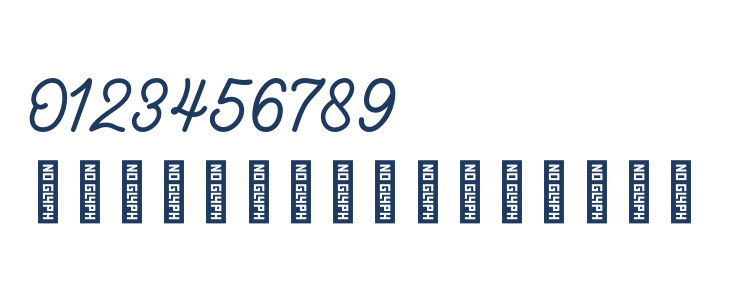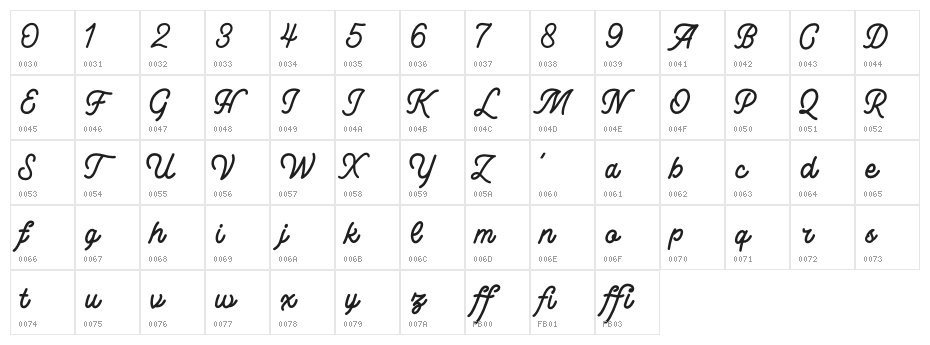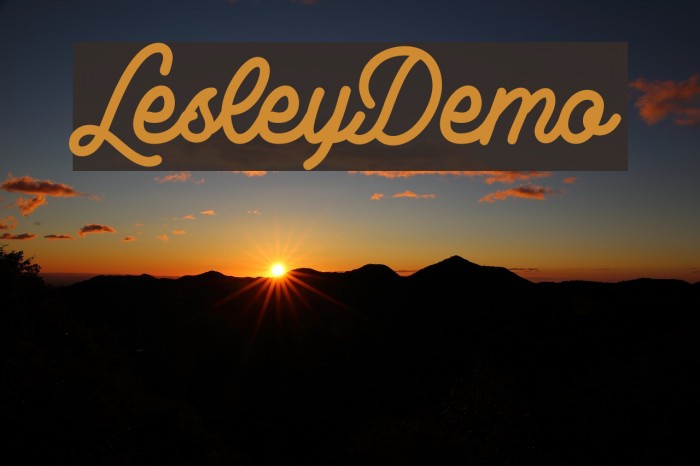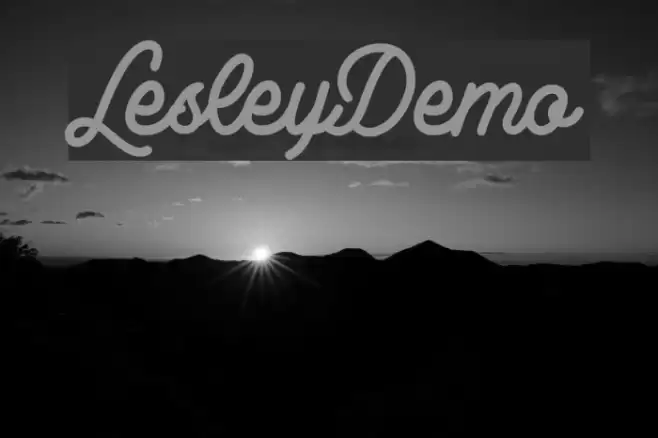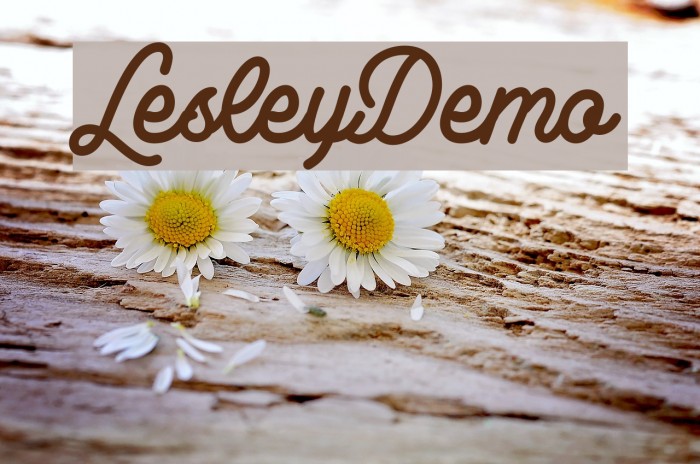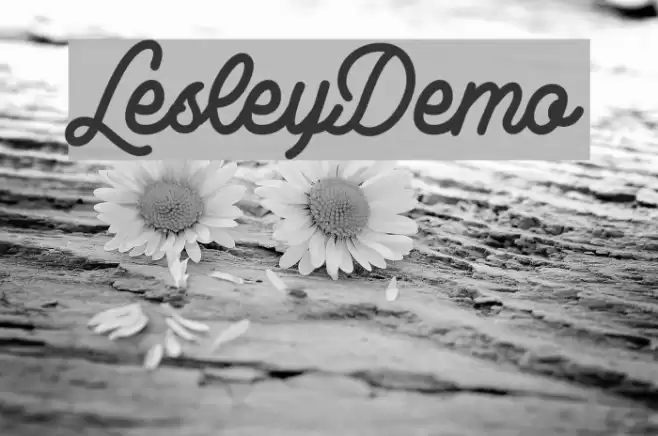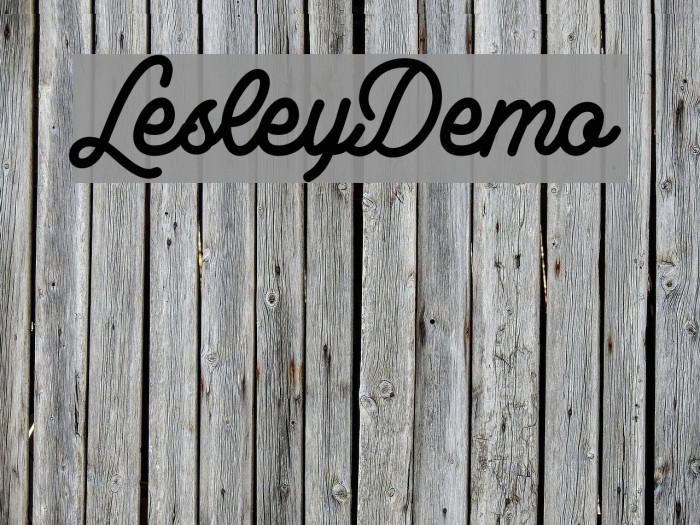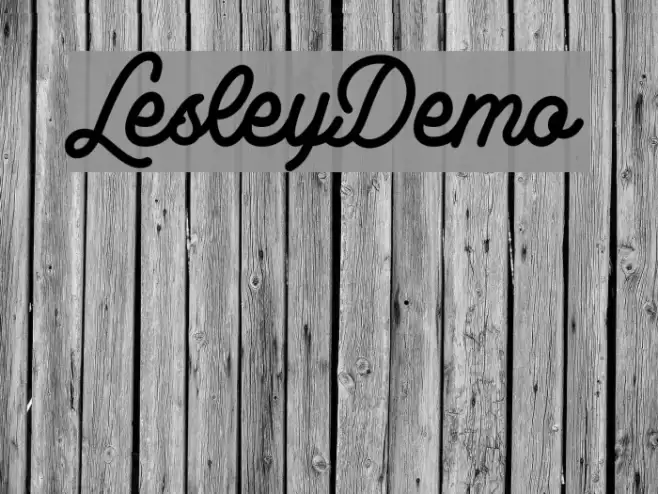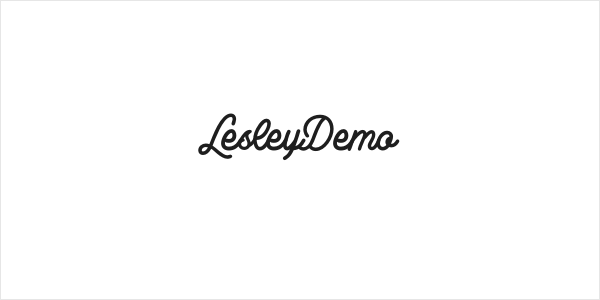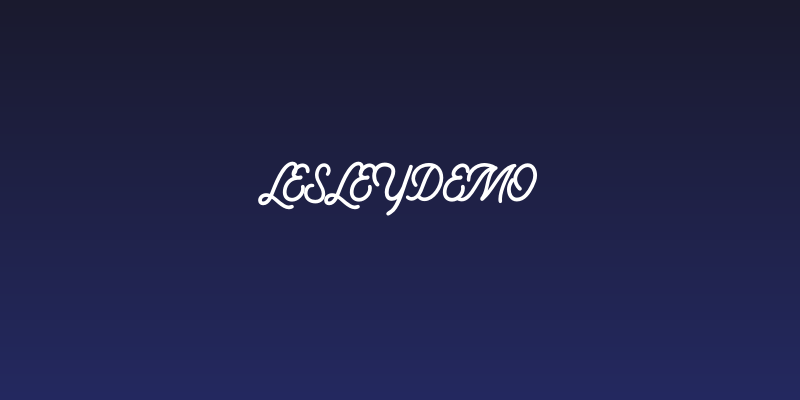
LesleyDemo Font
LesleyDemo Description
This font is a stylish and elegant script typeface with a smooth, flowing design. The letters are connected in a cursive manner, giving it a handwritten appearance. The uppercase letters are bold and prominent, while the lowercase letters maintain a consistent flow, enhancing readability. The numerals are clear and well-proportioned, matching the overall aesthetic of the font. Special characters are included, maintaining the same elegant style. This font is perfect for projects that require a personal touch, such as invitations, greeting cards, or branding materials.
| Proposed Projects | Ideal for invitations, greeting cards, branding materials, and personal projects. |